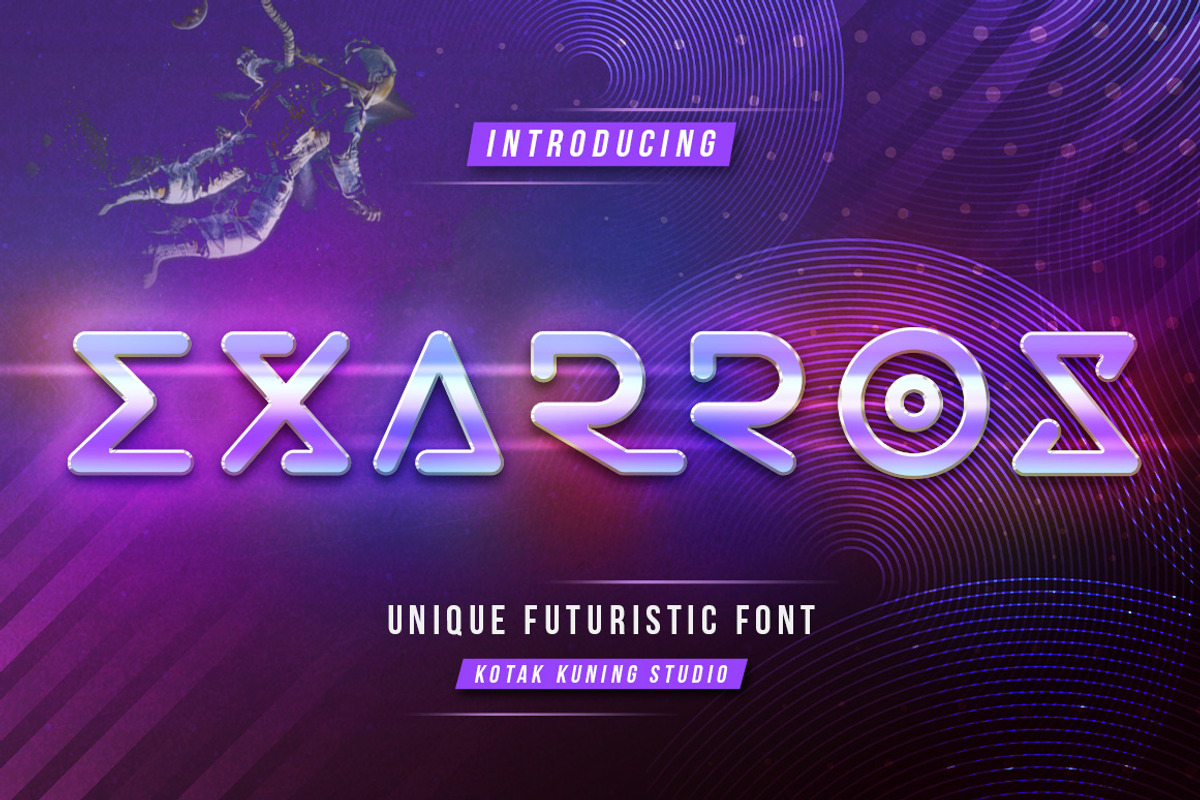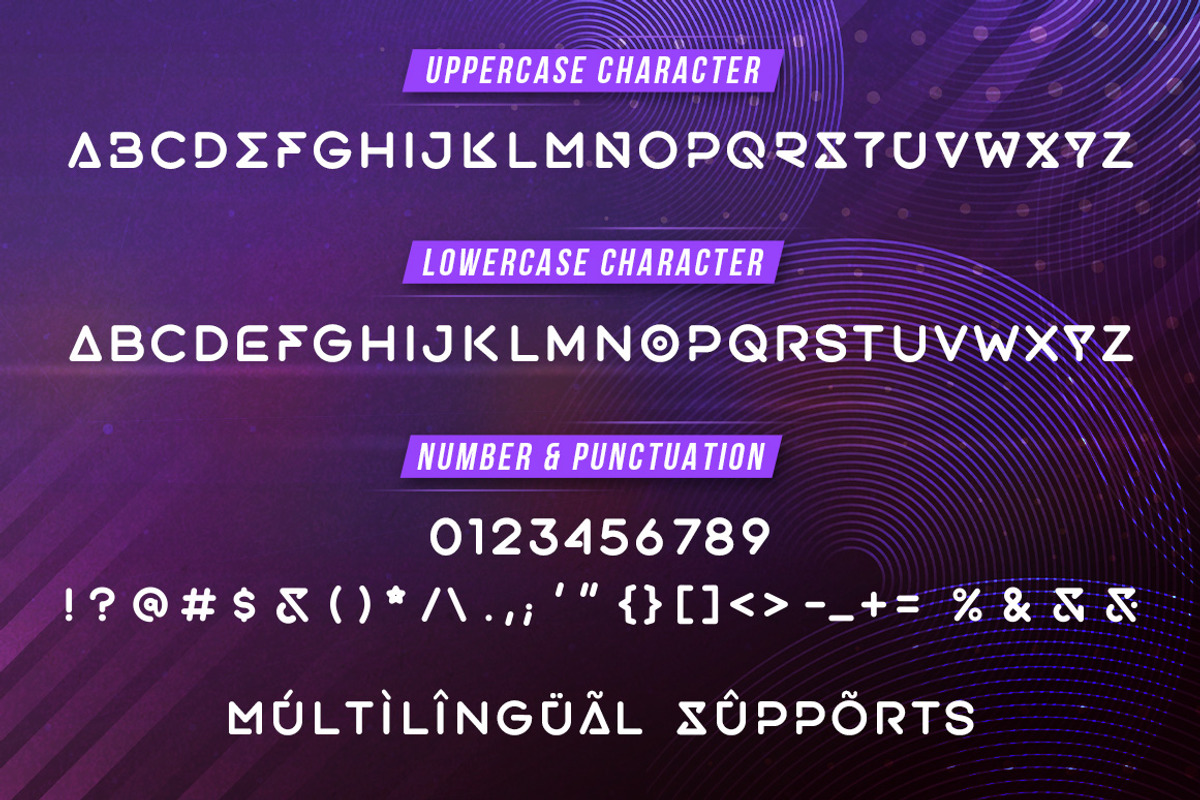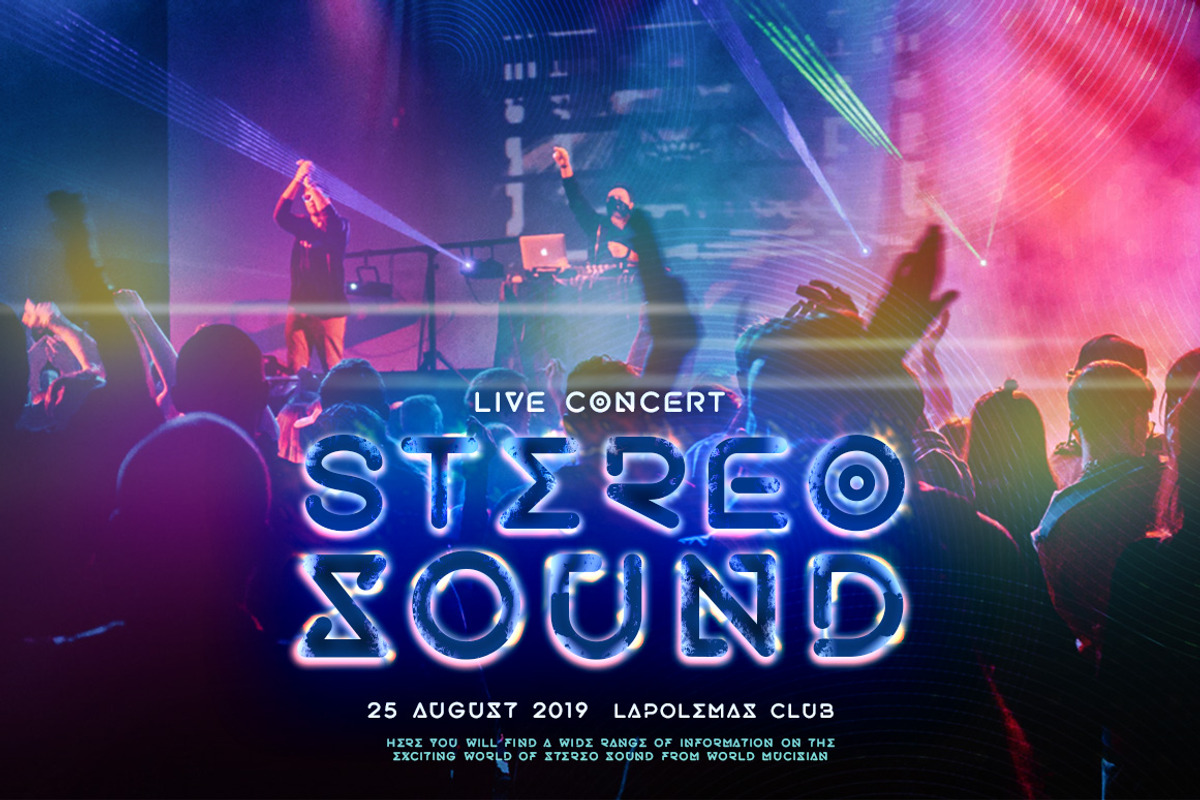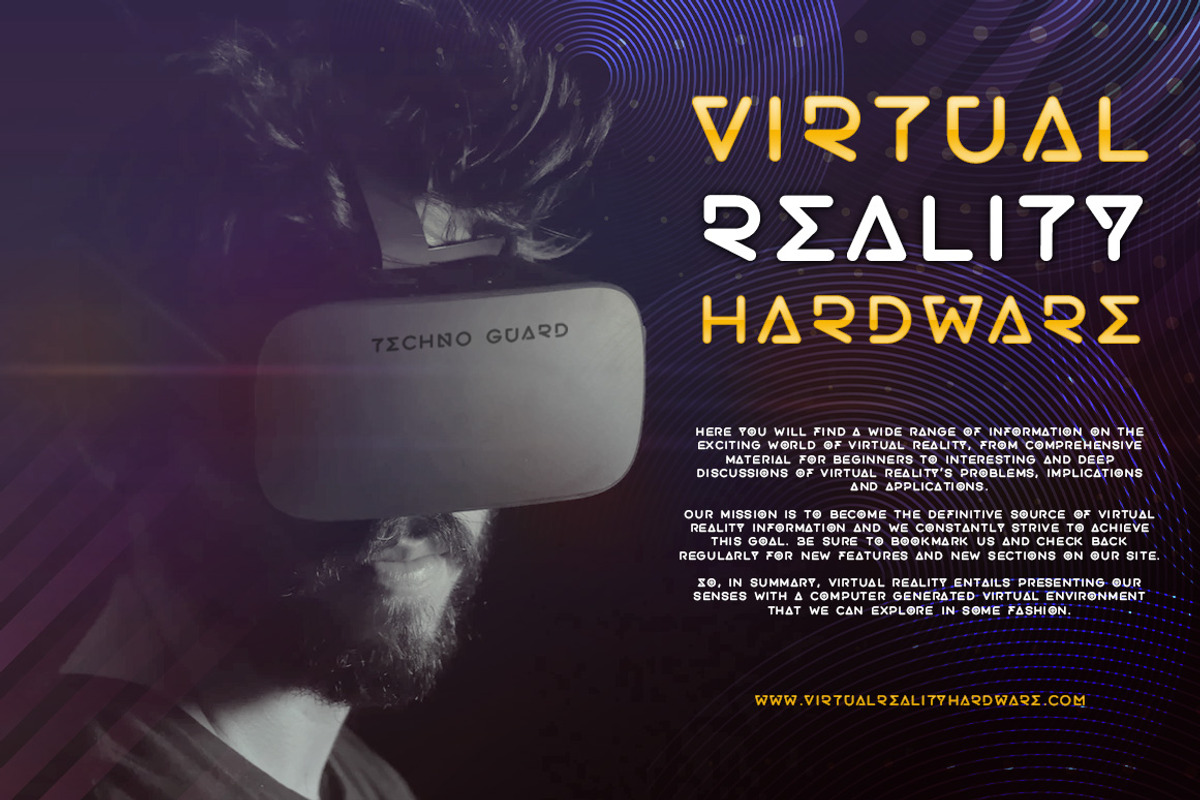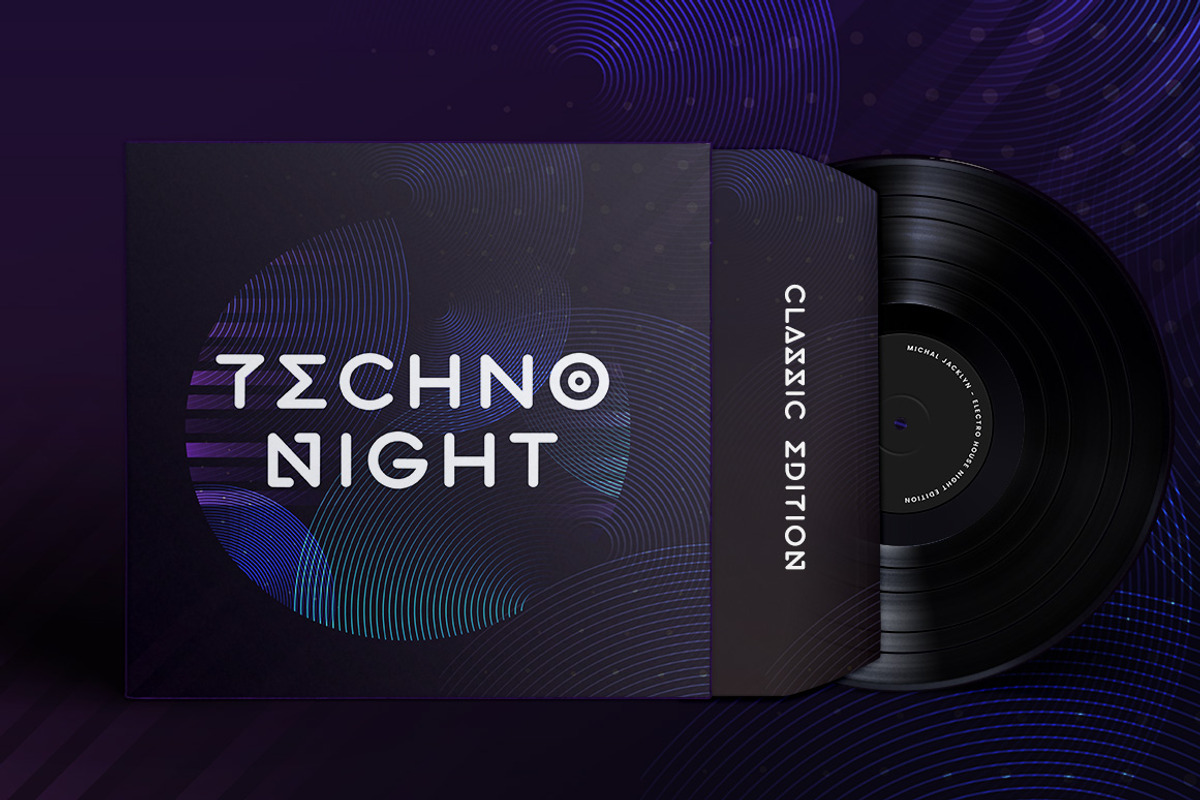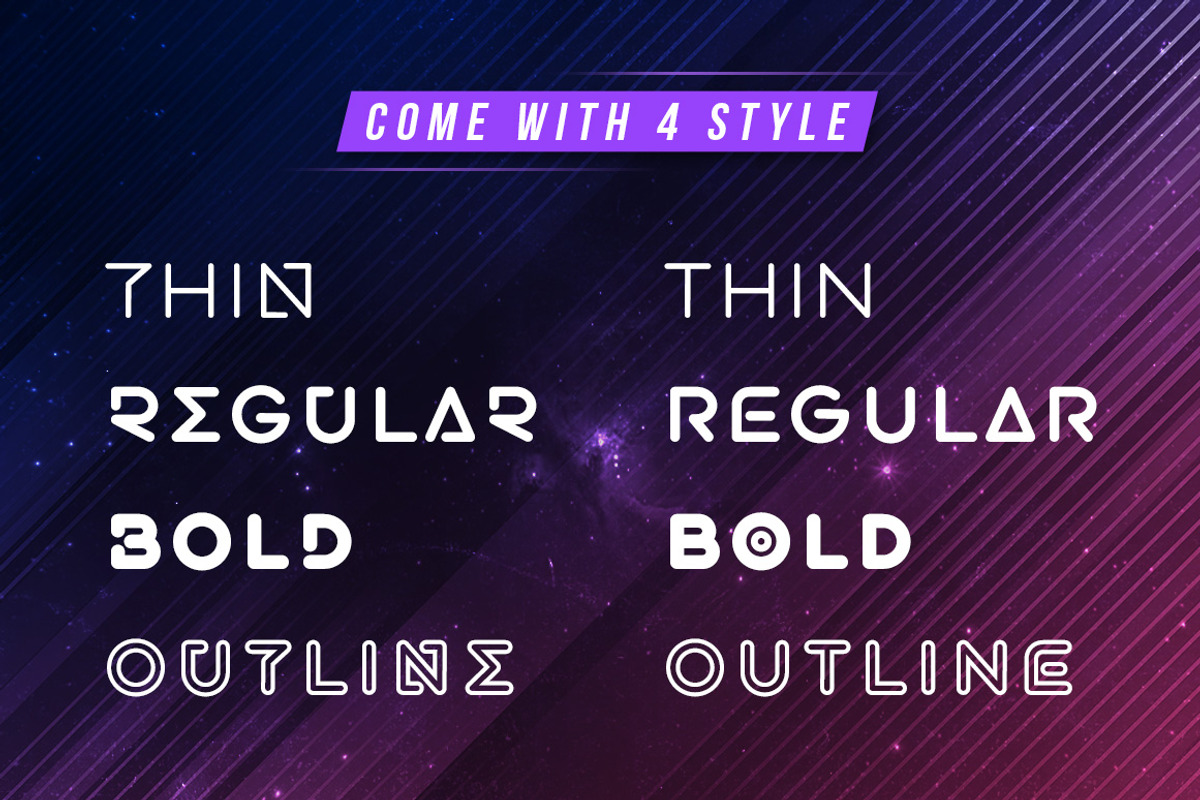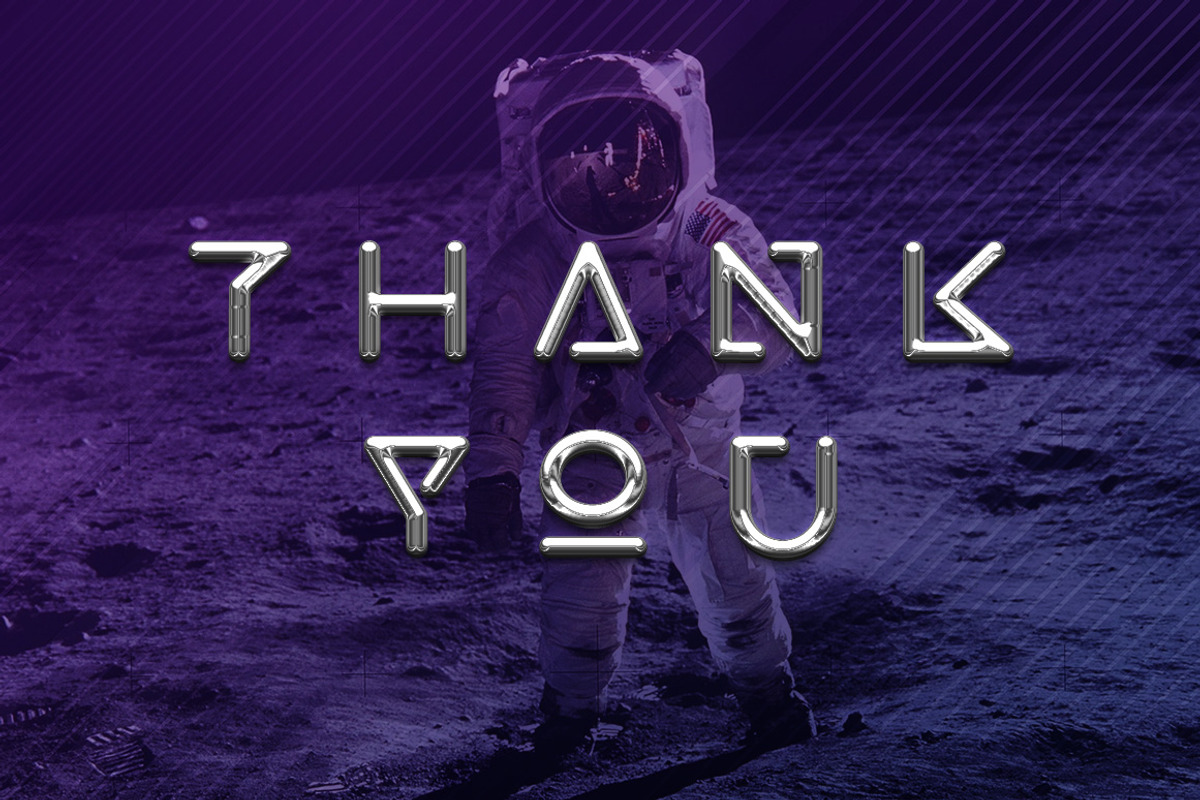
Exarros
Exarros is a unique and futuristic sans serif font family. The combination of futuristic and geometric elements renders a modern design.
Exarros includes 4 fonts family with futuristic caps, thereby creating more variability. This font is suitable to use as a logotype, product designs, label, watermark, social media posts, apparel, invitation, signboard, sports club, motor/car, special events or anything that need handwriting taste.
- Exarros includes capital and lowercase letters, Alternates, and Ligatures
- Numbers + punctuation
- Foreign language support